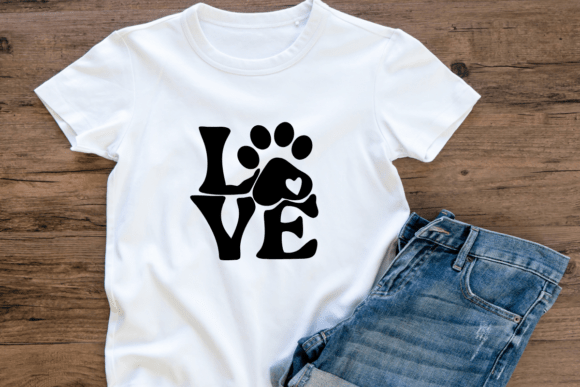
Paw Prints Font
Paw Prints is a lovable dingbats font featuring a variety of paw shapes, hearts, and animal footprint combinations. Great for pet lovers, vet clinics, animal rescue graphics, and DIY craft projects, this font makes it easy to add paw-some charm to your designs.